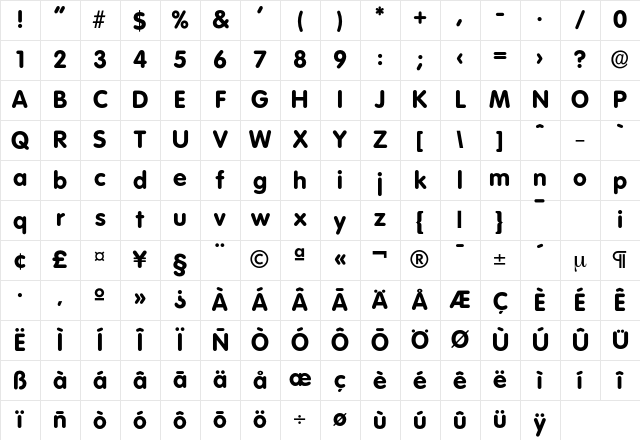
Volkswagen-Bold Regular
Complete Volkswagen-Bold Regular glyph index. Displaying only characters natively supported by Volkswagen-Bold Regular font.
Design Context for Volkswagen-Bold
Volkswagen-Bold is a composed and adaptable typeface that performs quietly and consistently across a wide range of design contexts. Its bold stroke weight gives it real presence on the page.
Pro Tip: Use Volkswagen-Bold in both headline and body roles to test its range before committing to a single application.